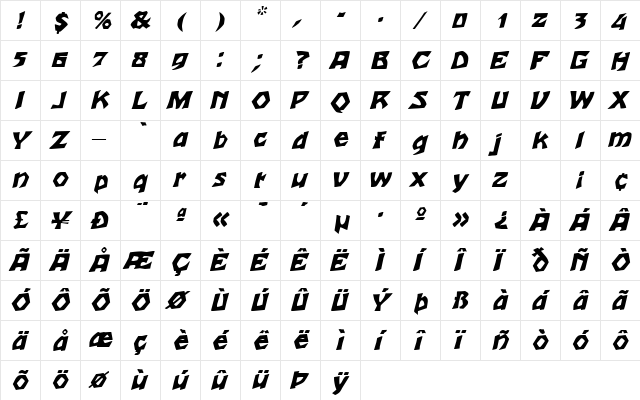
Talon Italic Font Preview
Talon Italic
Talon Italic Font Details
Design Context for Talon Typeface
Talon is a composed and adaptable typeface that performs quietly and consistently across a wide range of design contexts. The slanted form adds forward momentum and visual energy.
Pro Tip: Try Talon for annotation and caption copy alongside an upright companion — the contrast in angle creates a dynamic but ordered typographic system.